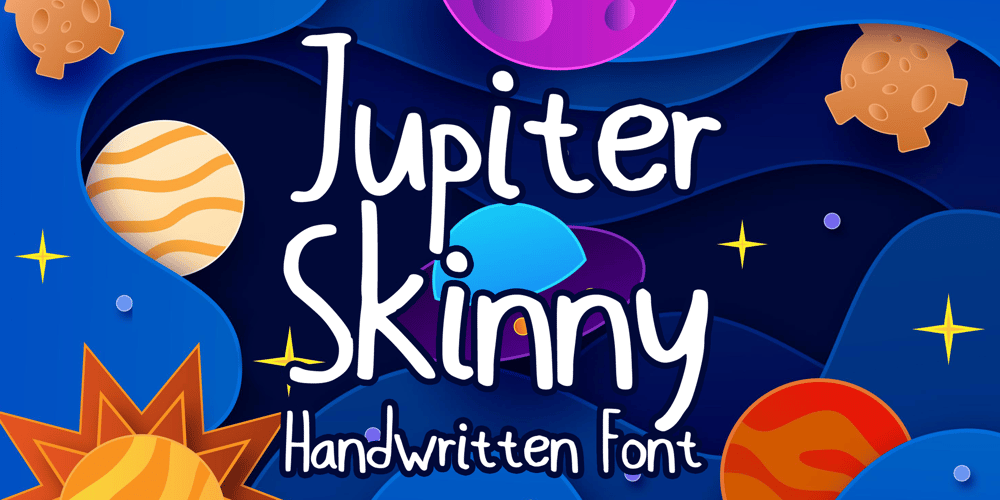
Jupiter Skinny
Jupiter Skinny font
Jupiter Skinny Font Family was designed by Gabriel Valentinus and published by Mvmet. Jupiter Skinny contains 1 styles and family package options. Jupiter Skinny is a playful skinny handwritten comic font. It will elevate a wide range of design projects to the highest level. You can use this font for many design ideas such as stickers, t-shirt designs, amazing logo designs, magazine or book covers, comics, cartoon drawings, daily typing, and many more. This font will add a super cool touch to your designs!